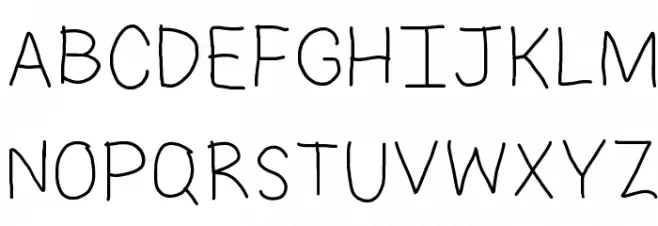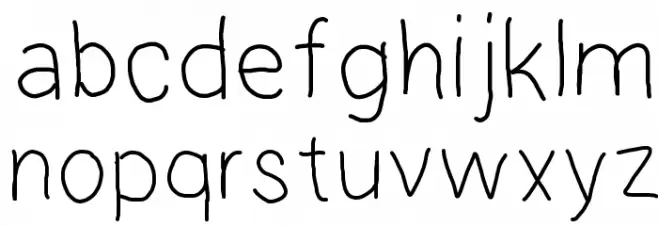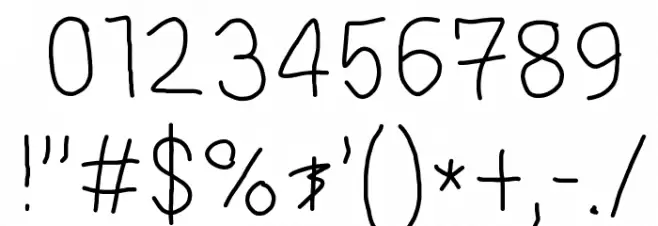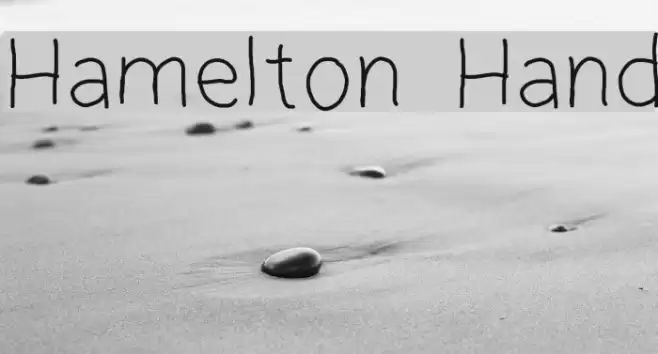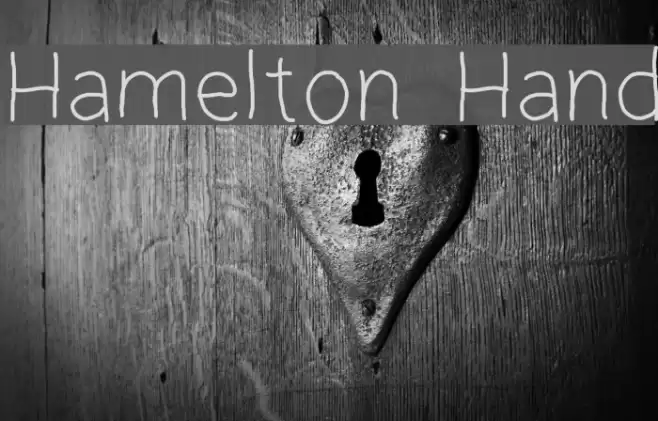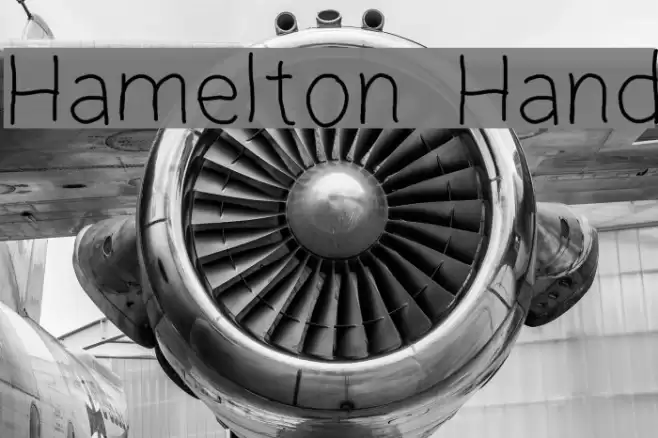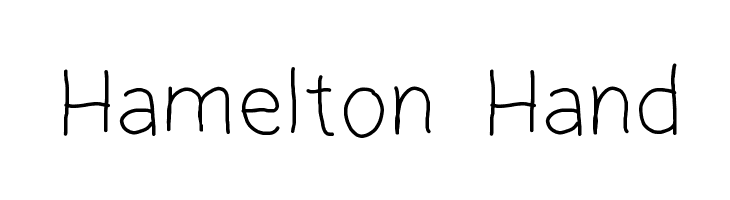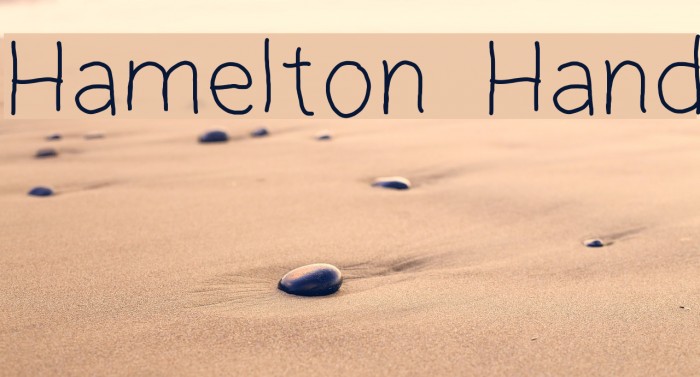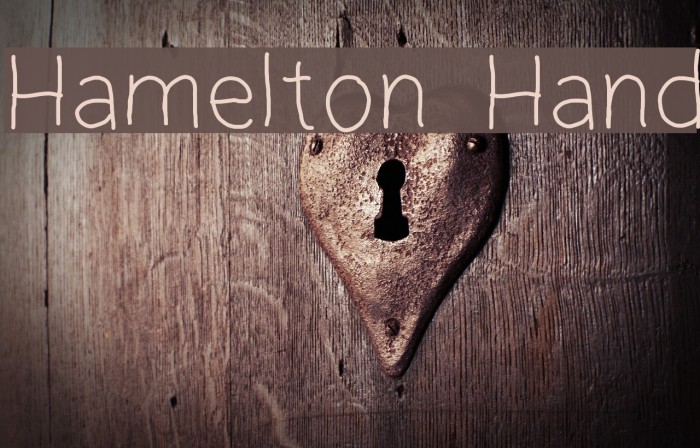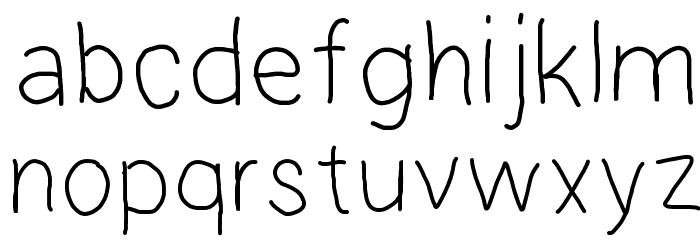
Hamelton Hand
This font exudes a casual, handwritten style with a playful and approachable demeanor. Each character is crafted with a slightly irregular stroke, giving it a personal and authentic touch reminiscent of natural handwriting. The uppercase and lowercase letters maintain a consistent flow, while the numerals and special characters complement the overall aesthetic. The strokes are moderately thick, providing good readability without sacrificing the whimsical charm. This font is ideal for projects that require a personal, friendly, and informal tone, such as invitations, greeting cards, or creative branding.
A playful, handwritten font with a casual and approachable style.
- Proposed Projects: Ideal for invitations, greeting cards, personal branding, and creative projects.
- Overall Style: Casual, Playful, Handwritten
- Use Case: Headlines, Informal text, Creative projects